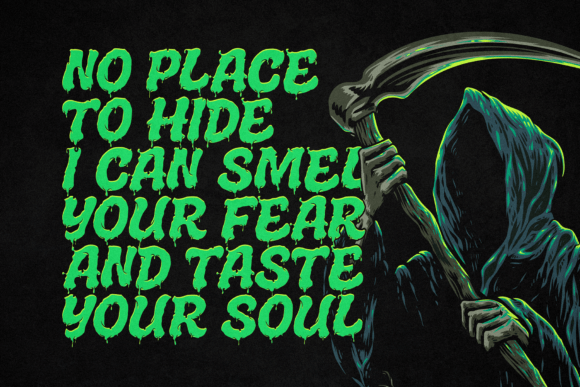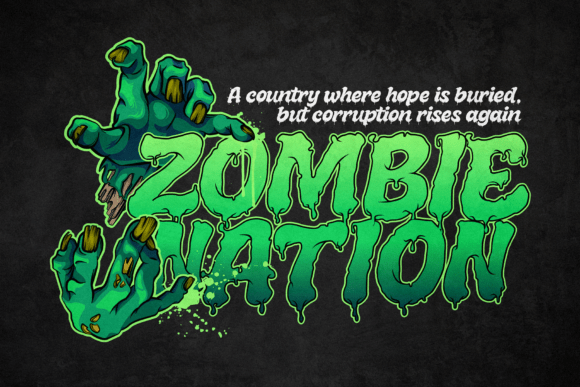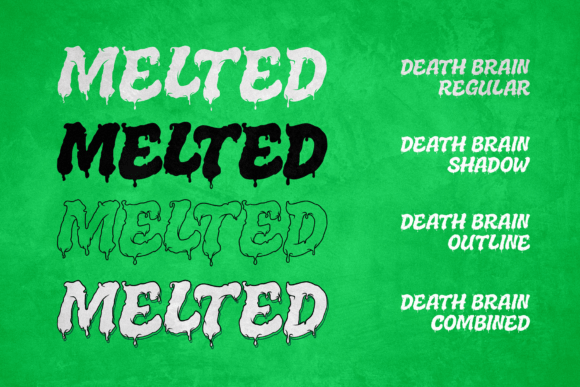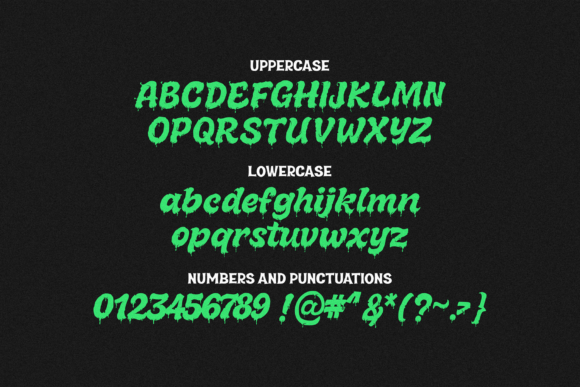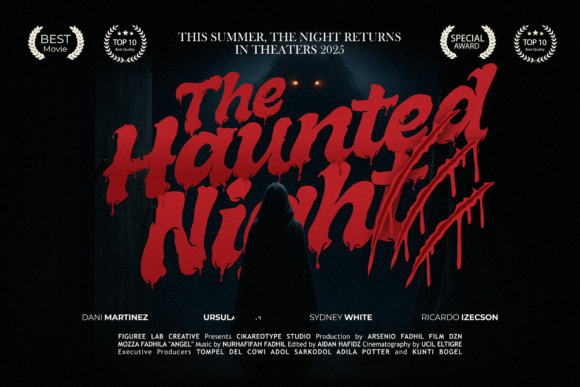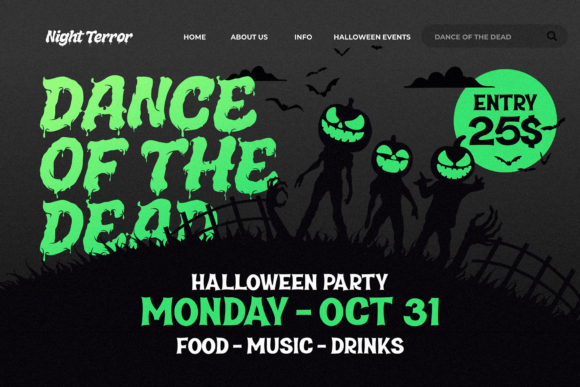
Introduction to Melted Brain Font
Melted Brain is a spine-chilling layered dripping Halloween font designed to make your designs ooze with horror.
Featuring uppercase and lowercase characters, it comes in three matching styles—Base, Outline, and Shadow—giving you the power to build terrifying, layered typography Perfect for Halloween posters, haunted house flyers, spooky invitations, or eerie game titles.
Key Features of Melted Brain Font
Why Choose Melted Brain Font?